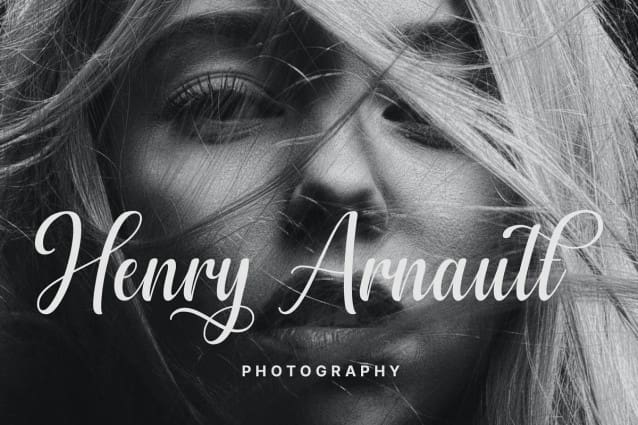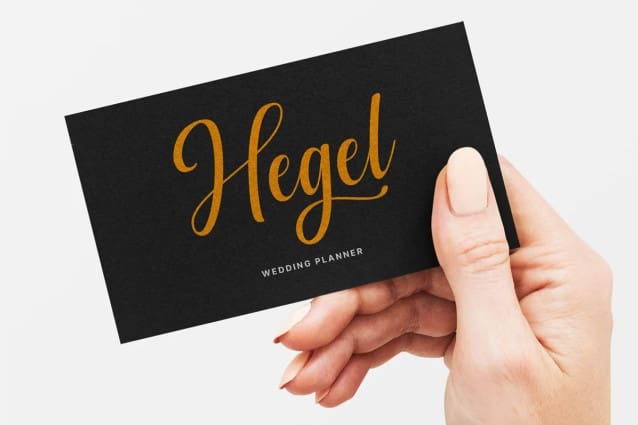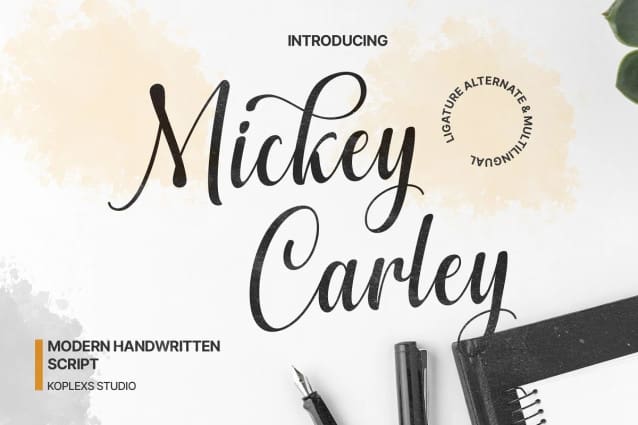
Mickey Carley Font
Mickey Carley Font – Modern Calligraphy Script Font presents an innovative typographic solution that encapsulates beauty and sophistication within each character. Meticulously crafted to showcase the distinctive essence of modern calligraphy, this font radiates warmth and artistic flair, enhancing the aesthetic appeal of your designs.
With its characteristic features, Mickey Carley  offers ease in conveying messages with elegance and charm. Its subtle and agile strokes make it suitable for a myriad of design purposes, ranging from business projects and branding to creative graphic design.
The sharpness and flexibility of Mickey Carley  allow for seamless application across various contexts, be it greeting cards, wedding invitations, corporate logos, or social media content. Each character is meticulously designed to ensure clarity and readability, maintaining the graceful flow inherent in calligraphy.
Owning Mickey Carley means acquiring more than just a font; it is a typographic work of art that exudes personality and professionalism. A perfect choice for those who appreciate beauty in every detail, this font will elevate your design projects to the next level. Acquire Mickey Carley now and witness how the beauty of modern calligraphy can transform the appearance and messaging of your designs with a special touch.